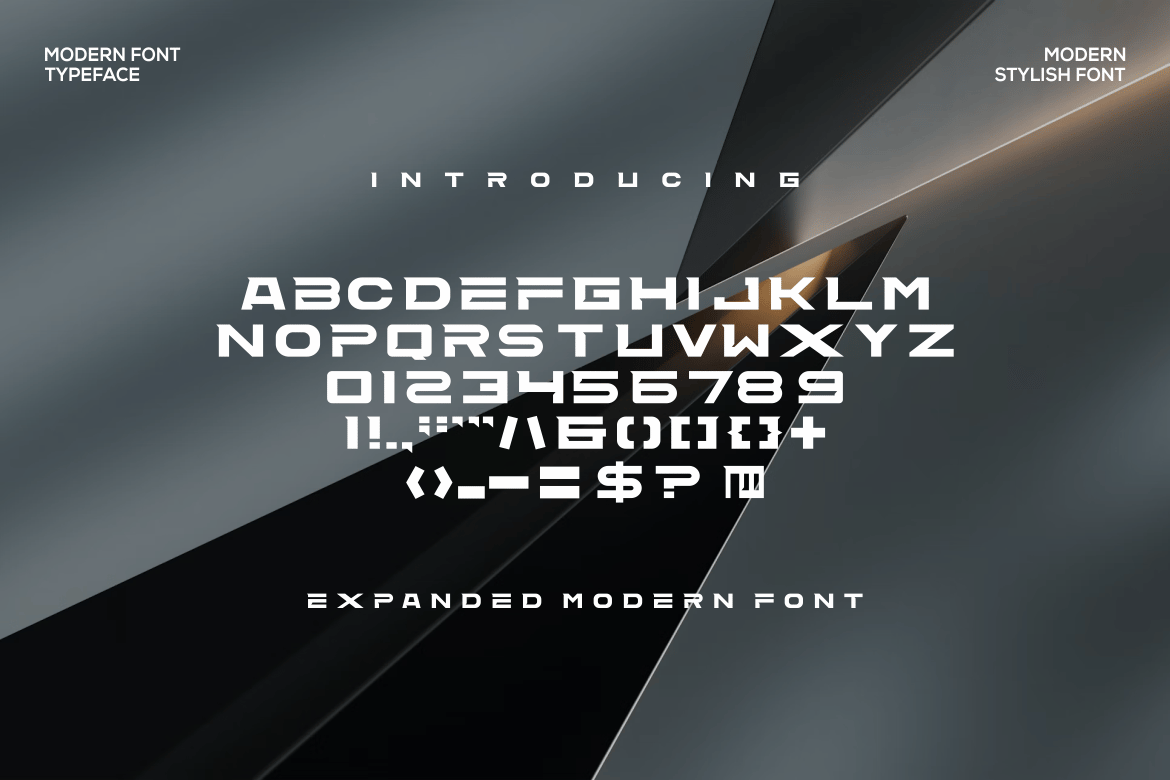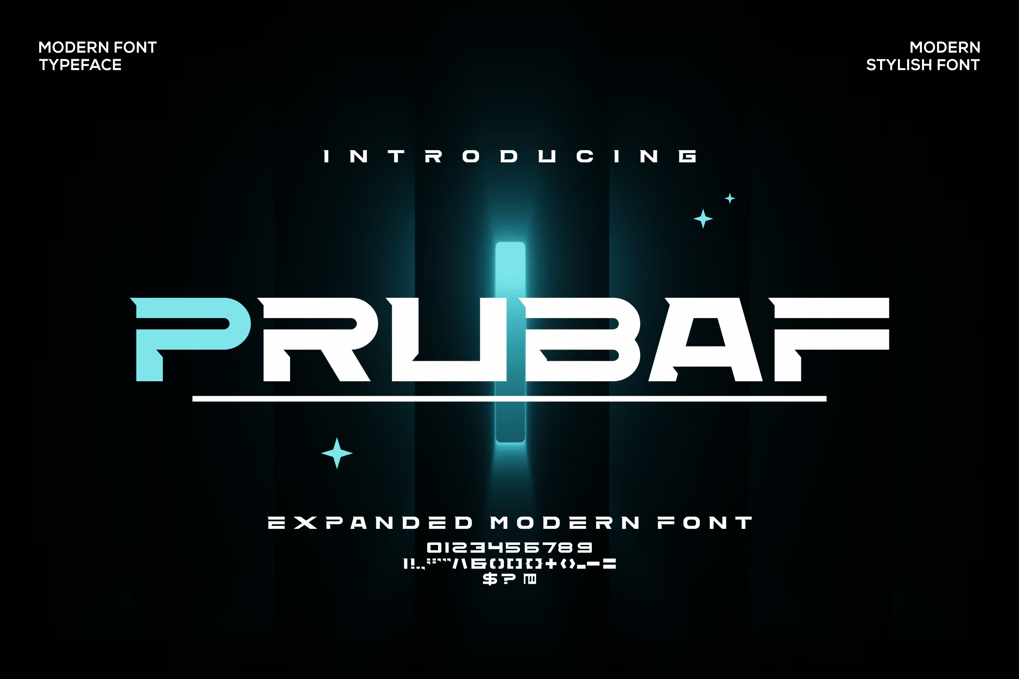
Prubaf Font – Modern Font is a bold and authentic display font. The font is suitable for any branding project like logo, esport, and many more. outstanding in a wide range of contexts.